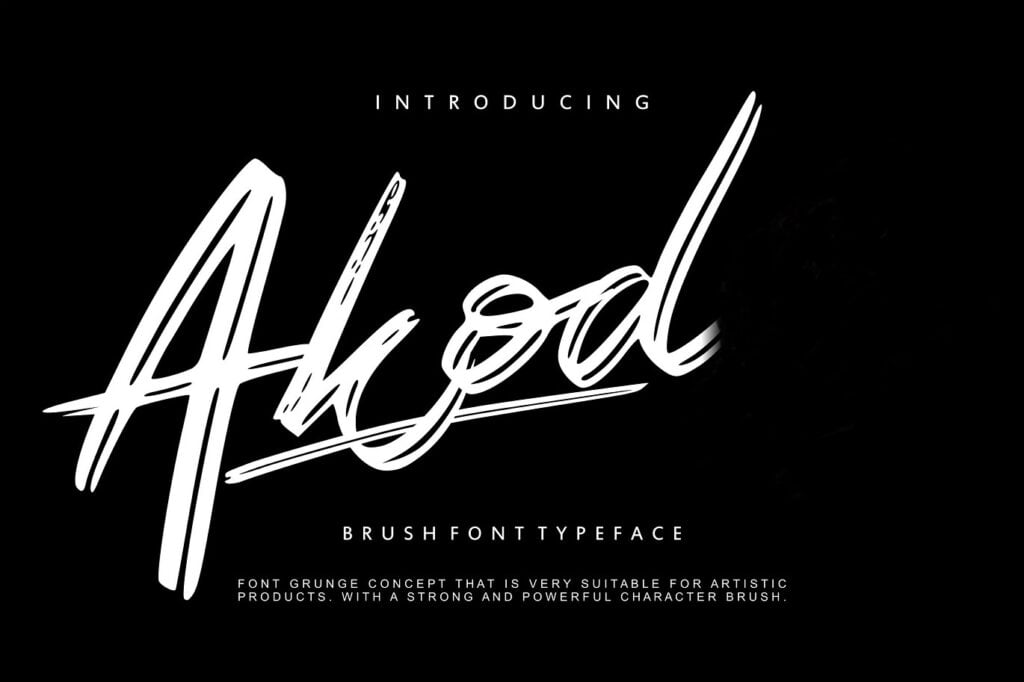
Akod Font
Akod Brush Script Font is a fresh handwritten font brush, elegant and vintage feel character set. Akod font includes a full set capital and lowercase letters, as well as multi-lingual support, currency figures, numerals, & punctuation.
Perfect choice for poster, logo, logotype, insignia, storefront, t-shirt design, label, flags, magazine, and other vintage design needs.
Akod Brush Script Font